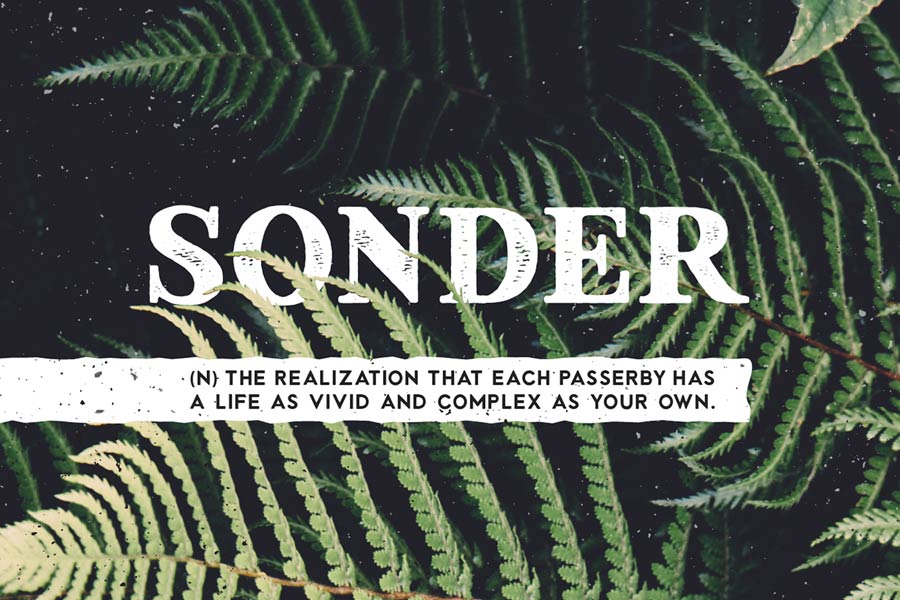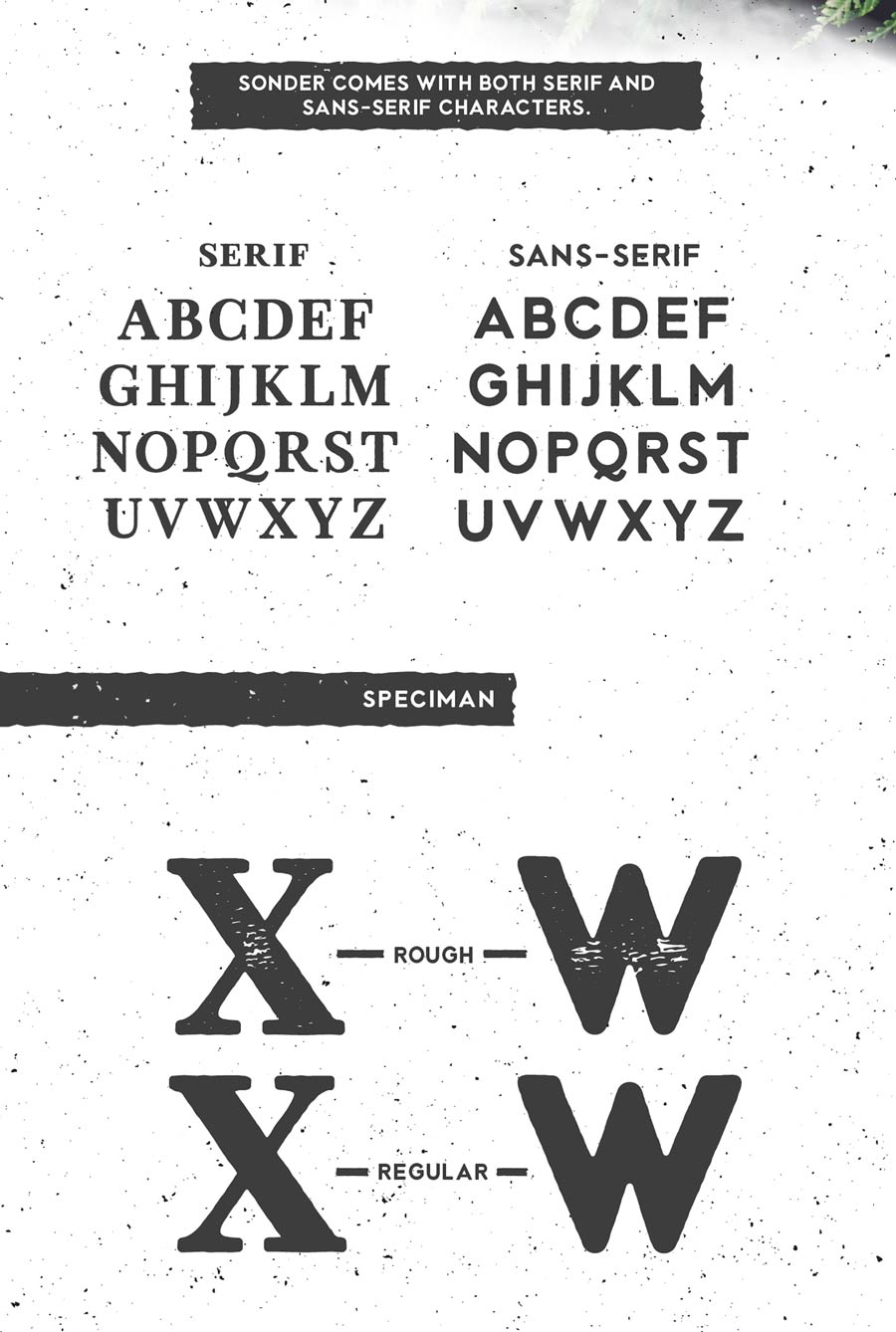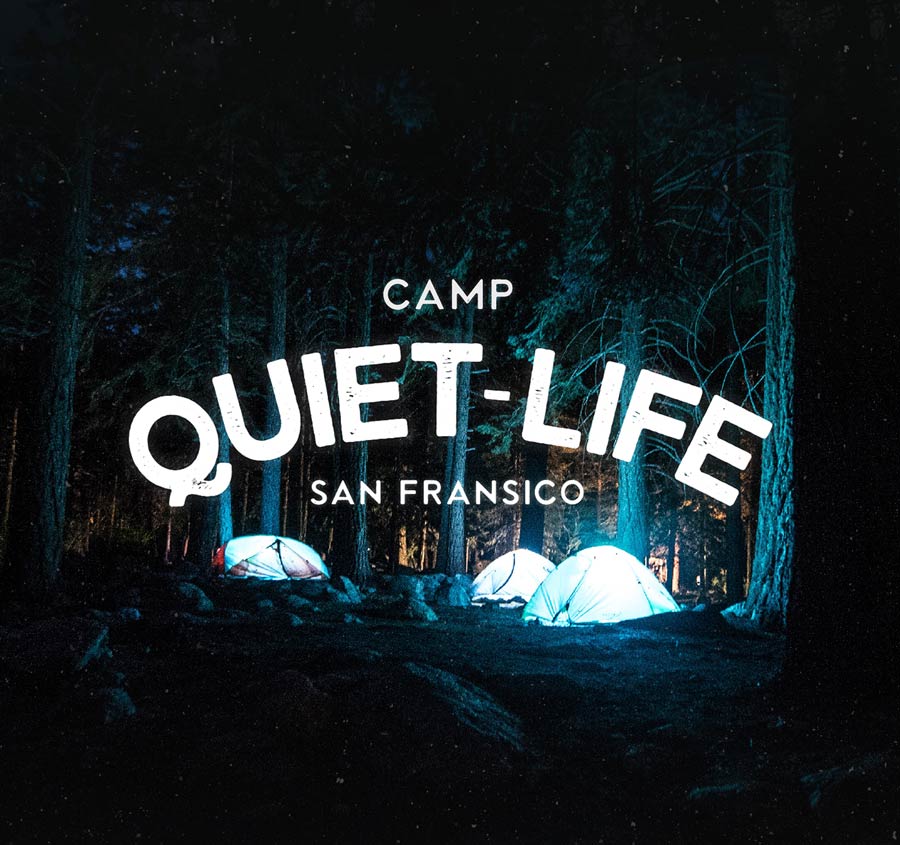
Sonder is an exploration on vintage lettering, featuring rough edges and mark-making textures in both serif and sans-serif fonts. The free version comes with 4 font styles that you can play around for free. This font works perfectly on logos, signages and labels.